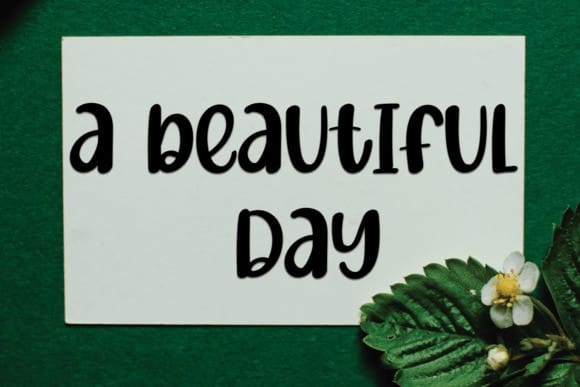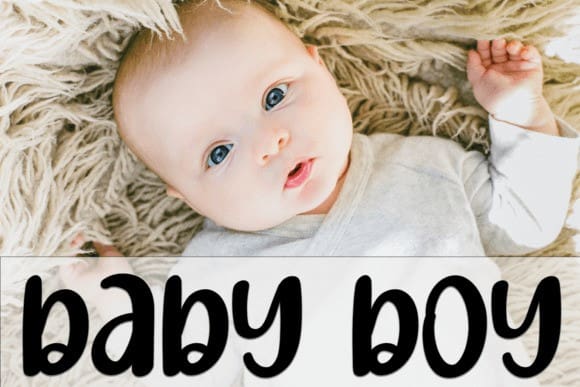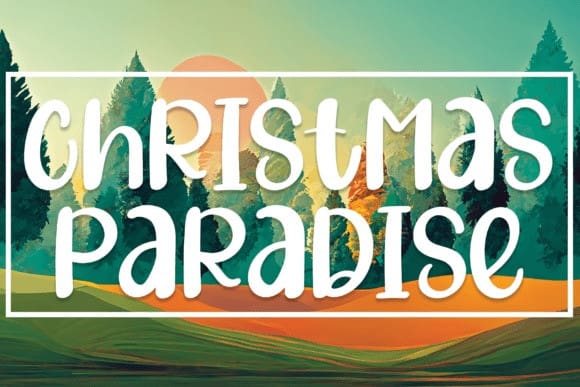
Christmas Paradise Font
Christmas Paradise Font is a simple and friendly handwritten font. Whether you’re using it for crafts, digital design, presentations, or creating greeting cards, this font has the potential to become your go-to font, whatever the occasion.